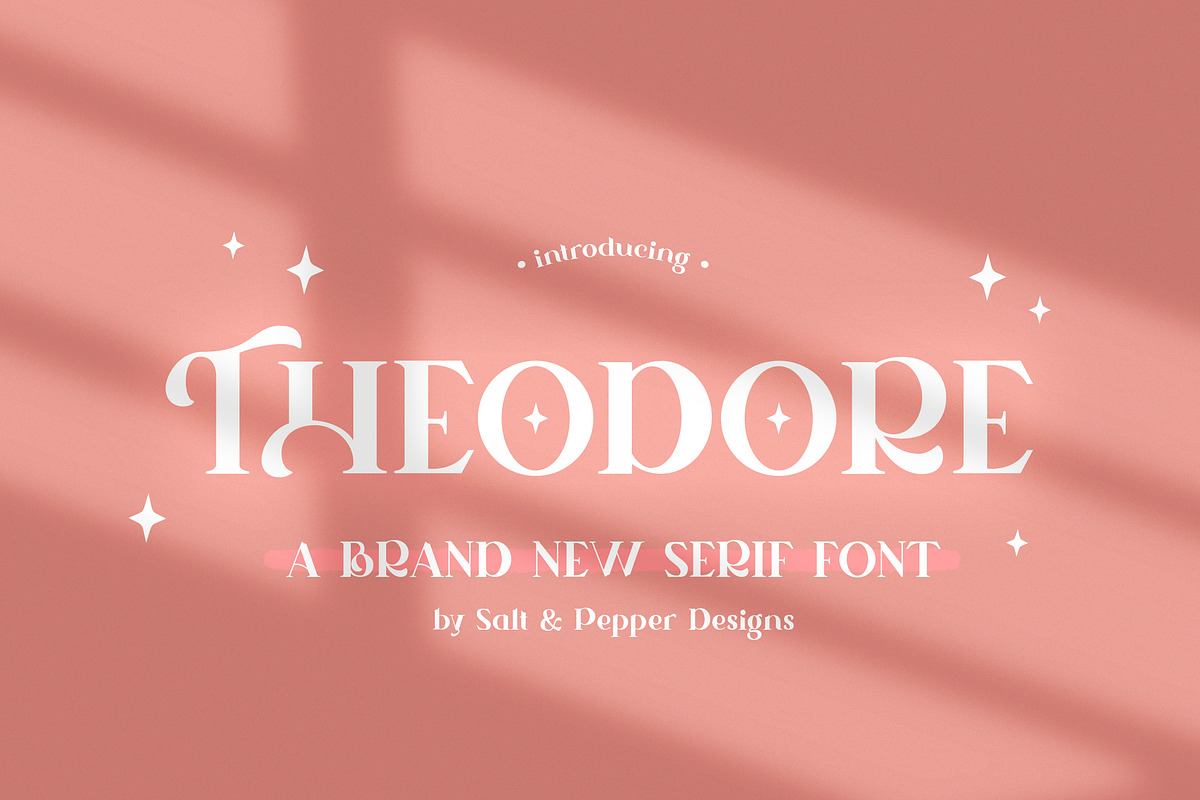
Theodore Serif Font Free Download is an elegant and timeless serif typeface designed with both classic and modern touches. Featuring clean lines, refined serifs, and balanced proportions, Theodore is perfect for high-end branding, editorial design, luxury packaging, wedding invitations, and sophisticated logos.
Its graceful letterforms ensure readability while maintaining an air of sophistication, making it versatile enough for both large headlines and body text. Whether you're creating a refined brand identity or a stylish editorial spread, Theodore adds a polished, professional touch to your typography.